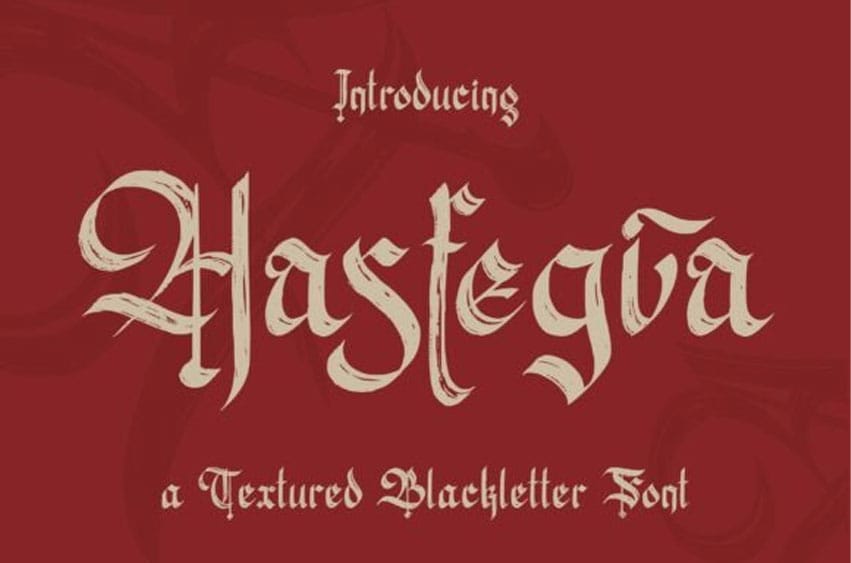
Hasfegia Font Immerse yourself in the dark allure of Hasfegia, a true clin d’oeil to Gothic calligraphy’s timeless chic. This font effortlessly marries raw, hand-drawn textures and exquisite grace, birthing a sophistication unparalleled in typography.
Every stroke of text in Hasfegia pulses with a fierce intensity, tempered by spirited curves, concocting a captivating visual persona. Sharp yet balanced, Hasfegia is a font that echoes a majestic mystery, each meticulously crafted character a testament to an aesthetically audacious yet elegant design.